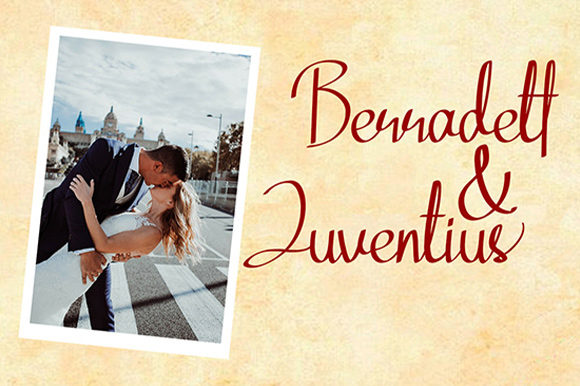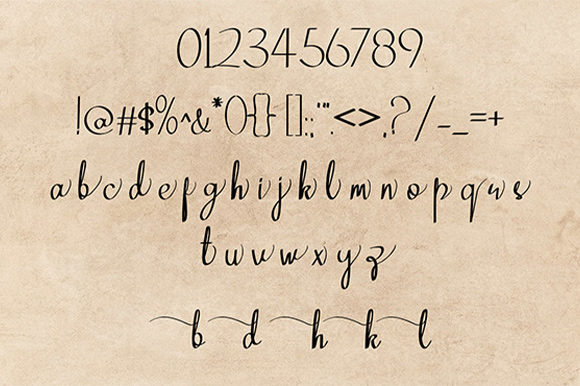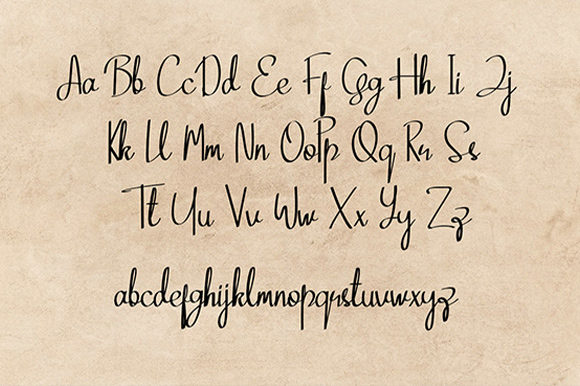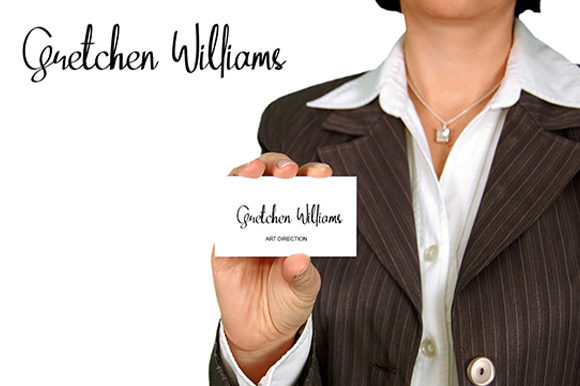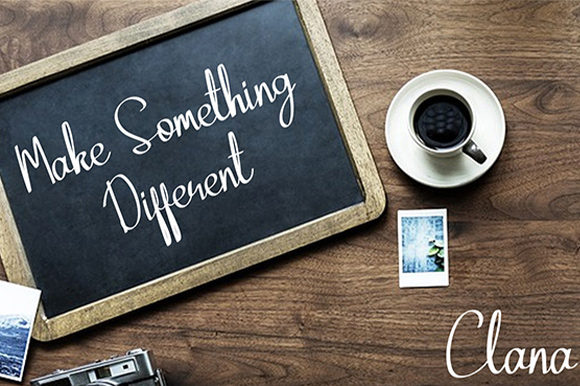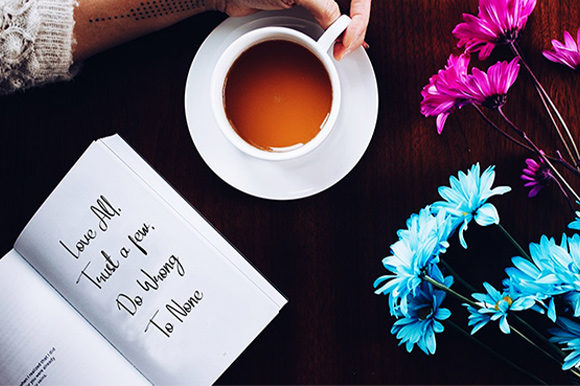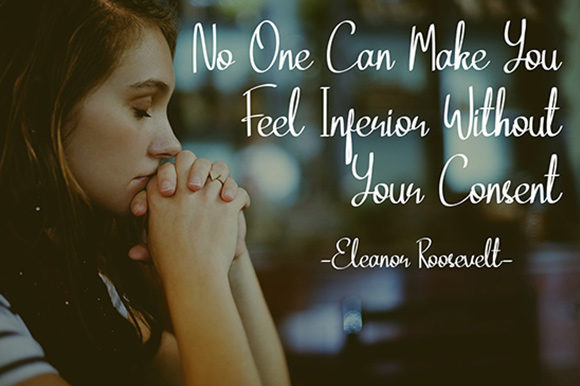
HomeScript FontsClana Font Script Fonts Clana Font FacebookXPinterestWhatsApp Clana Font Poster 2 Clana Font Poster 3 Clana Font Poster 4 Clana Font Poster 5 Clana Font Poster 6 Clana Font Poster 7 Clana Font Poster 8 About Clana Font Clana features beautiful handmade curves that bring forth the letters in an unexpected and dramatic way. DOWNLOAD ON CREATIVE FABRICAThis font is sold and delivered by Creative Fabrica. Font Canyon may earn a commission if you buy through this link. People also explored Kashmir Font Rumpelstiltskin Remillens Font Fourth of July Font Dorothy Font Blanket Signature Font Betaphid Sweat Papaya Duo Font Sillingen Font 292 0 TagsClana Font Previous articleNorth Avellion Duo FontNext articleQibtiyah Font LEAVE A REPLY Cancel reply Comment: Please enter your comment! Name:* Please enter your name here Email:* You have entered an incorrect email address! Please enter your email address here Website: Save my name, email, and website in this browser for the next time I comment. Personal Use Free Knox Personal Use Free Read more about this font Mandara Personal Use Free Read more about this font Omellia Personal Use Free Read more about this font Jurnal Personal Use Free Read more about this font BLOG To increase your work productivity, choose the most readable fonts. In today's fast-paced work environment, where digital communication and information consumption are integral to our daily routines, the choice of fonts can significantly impact... Exploring Font Trends Transform Your Website: Elevate Your Typography with 7 Best Web Font Generators Modern Sans-Serif Fonts That Brands Love in 2025